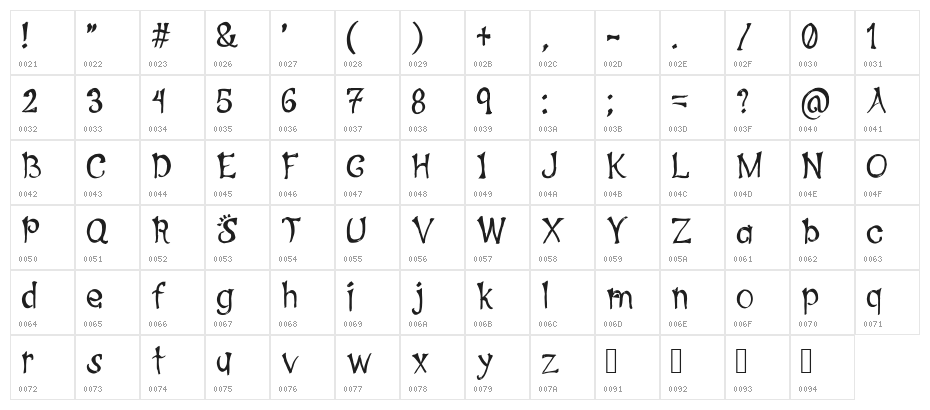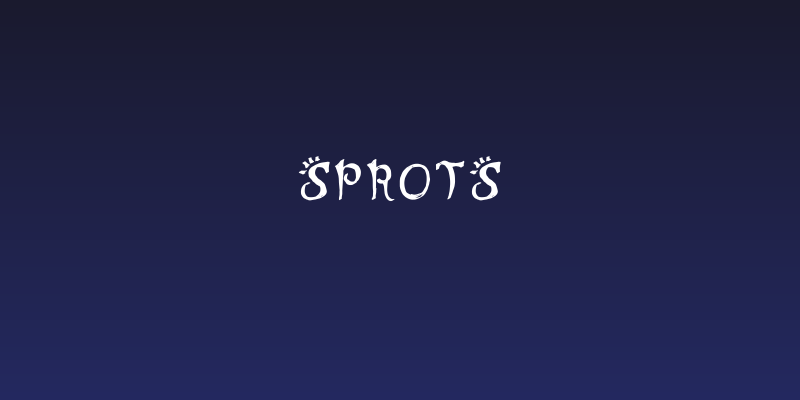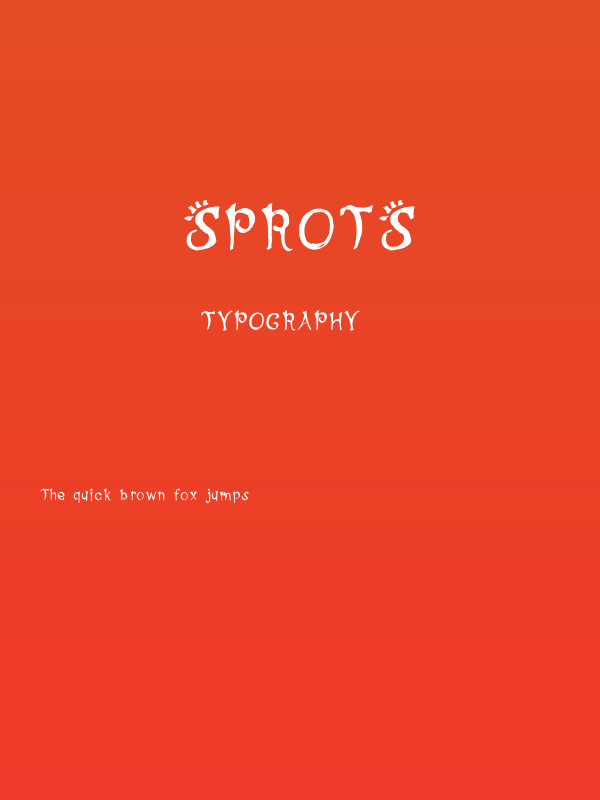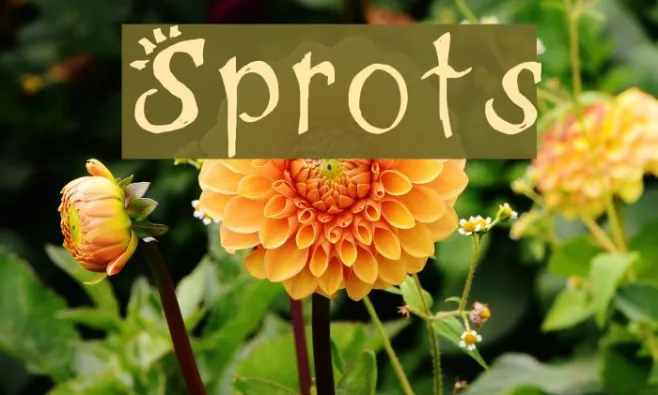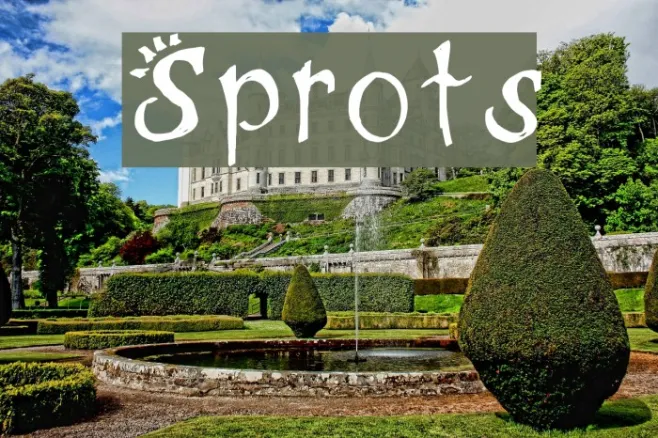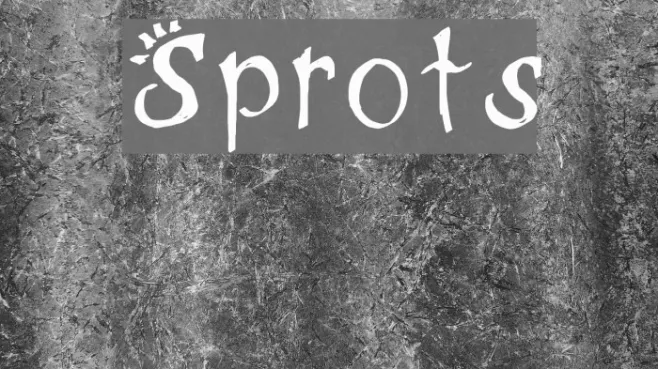
Sprots Font
Sprots Description
This font features a unique and artistic style, characterized by its irregular and hand-drawn appearance. The letters have a playful and whimsical quality, with varying stroke thicknesses and uneven baselines that give it a dynamic and lively feel. The uppercase letters are bold and prominent, while the lowercase letters maintain a consistent style with slightly more subtlety. The numerals are distinct and match the overall aesthetic, making them easily recognizable. Special characters are creatively designed, adding to the font's charm and versatility. This font is perfect for projects that require a touch of creativity and individuality.
| Overall Style | Artistic |
| Use Case | Logos, Posters, Creative projects |
| Proposed Projects | Ideal for children's books, creative posters, artistic branding, and playful invitations. |